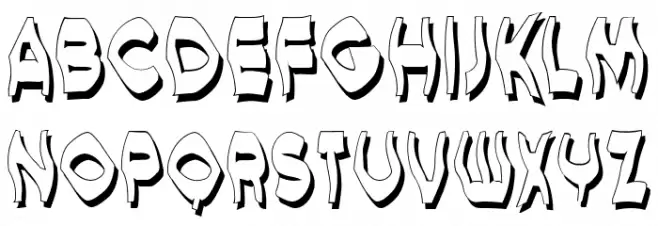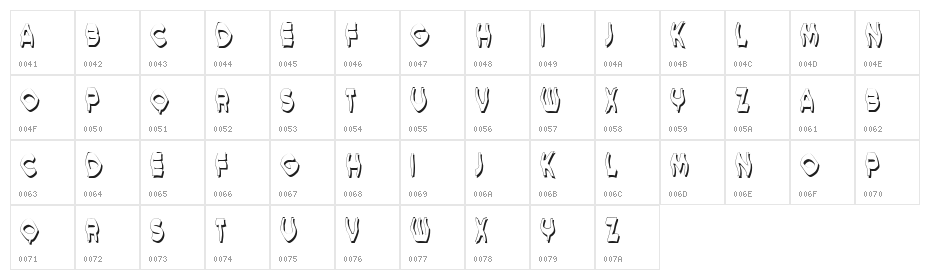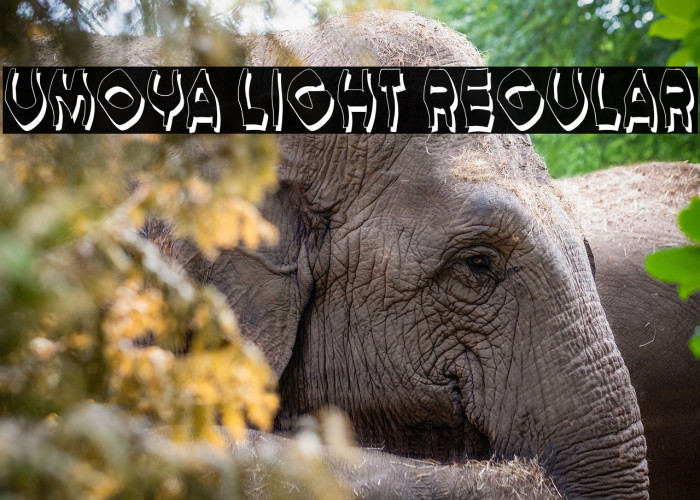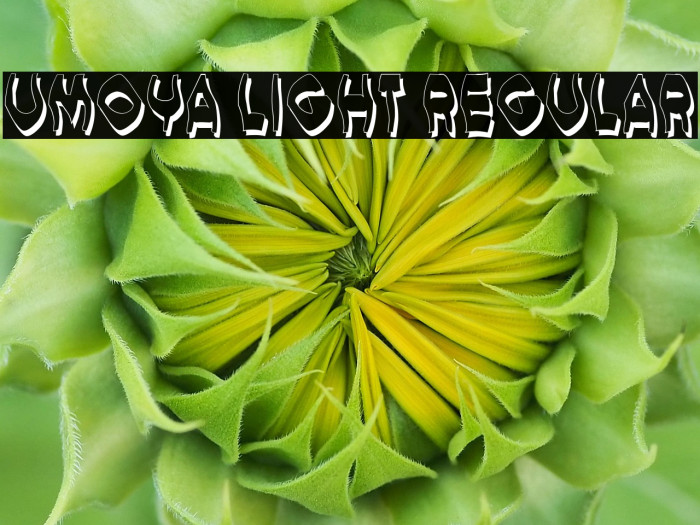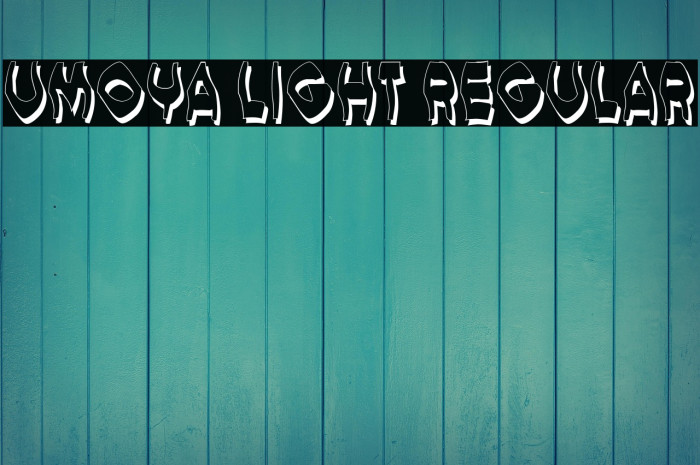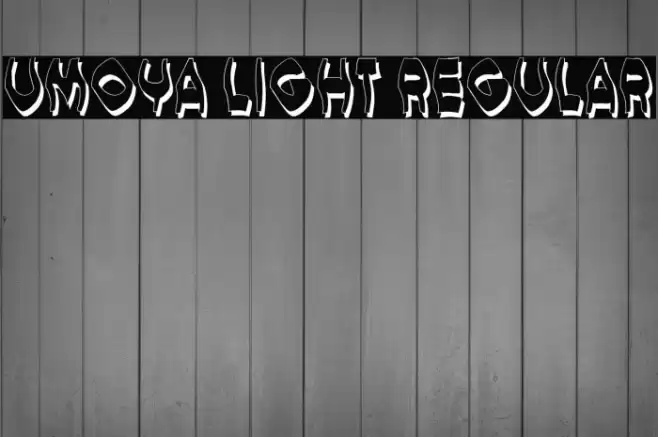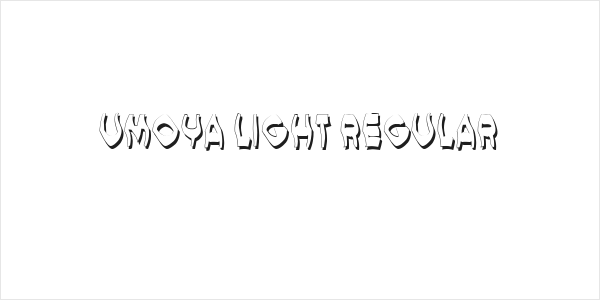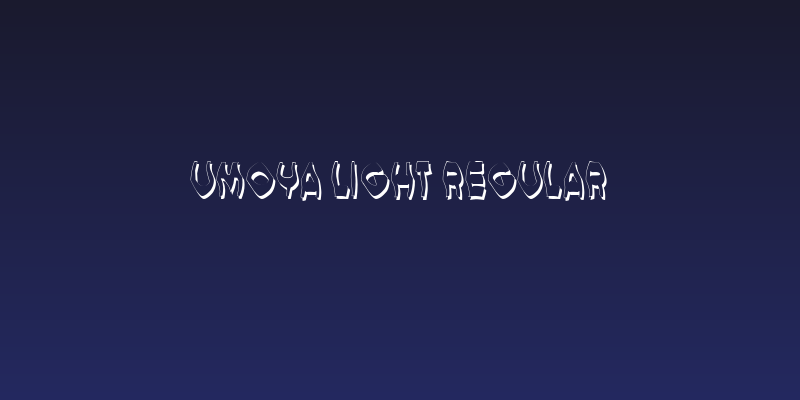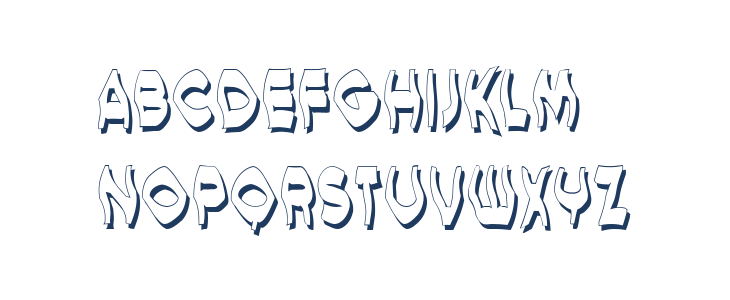
Umoya Light Regular Font
Umoya Light Regular Description
This font features a bold, three-dimensional style with a playful and dynamic appearance. The letters have a shadow effect that gives them depth, making them stand out on the page. The strokes are thick and consistent, contributing to a strong visual impact. The overall design is reminiscent of graffiti or street art, with a modern twist that adds a sense of movement and energy. The characters are well-defined, with a slightly condensed width that enhances their boldness. This font is ideal for projects that require a striking and unconventional look.
| Proposed Projects | Ideal for posters, album covers, street art designs, and branding projects that require a bold statement. |